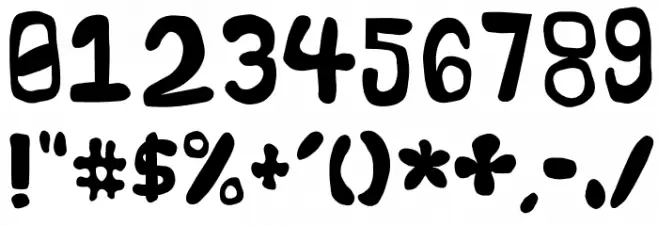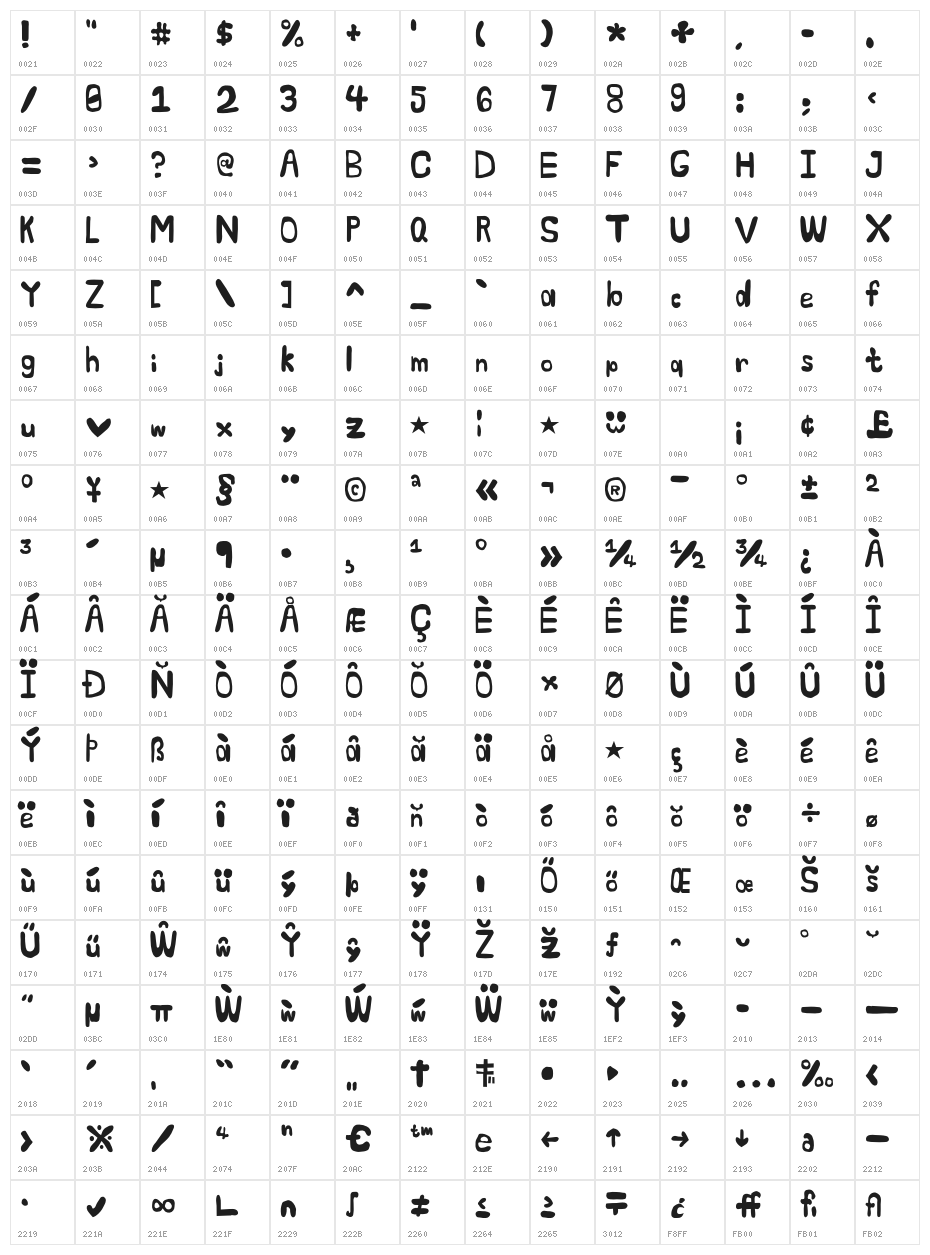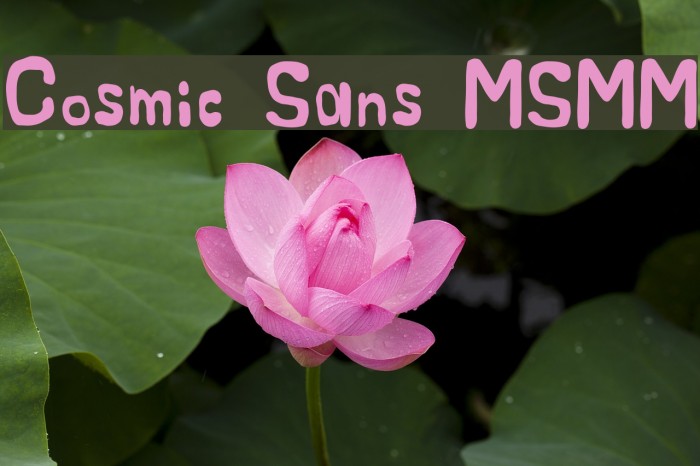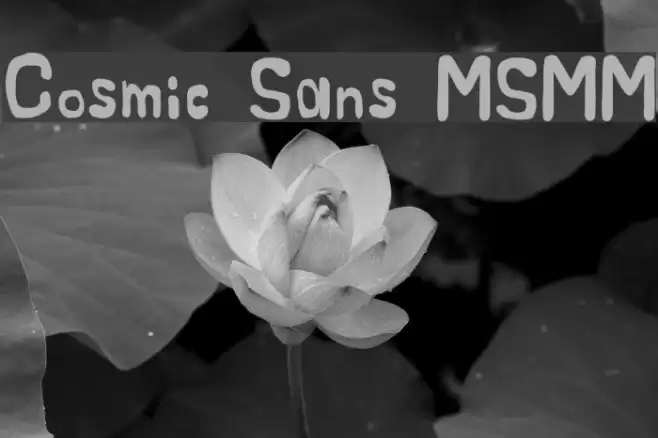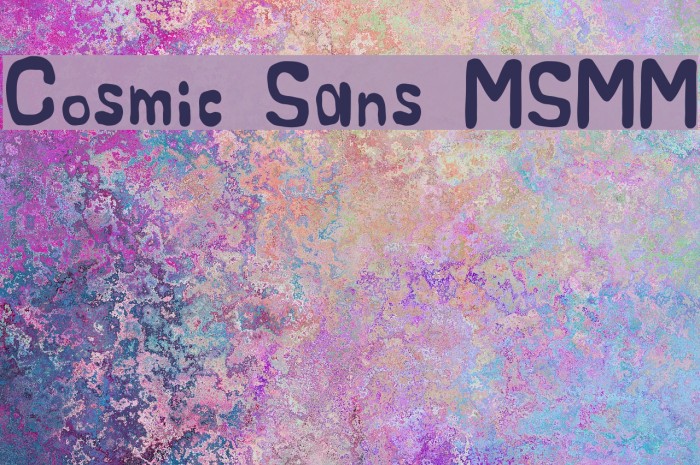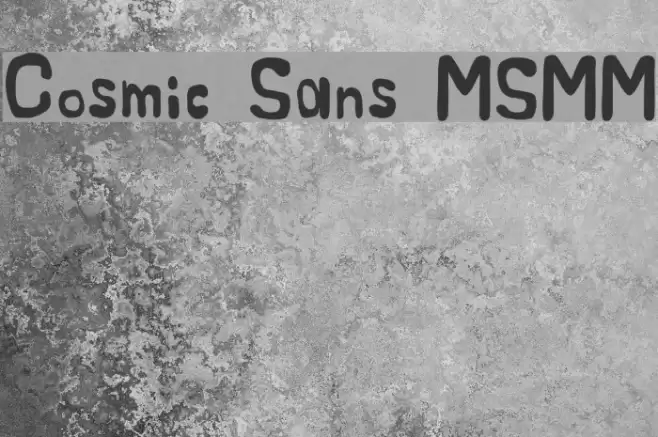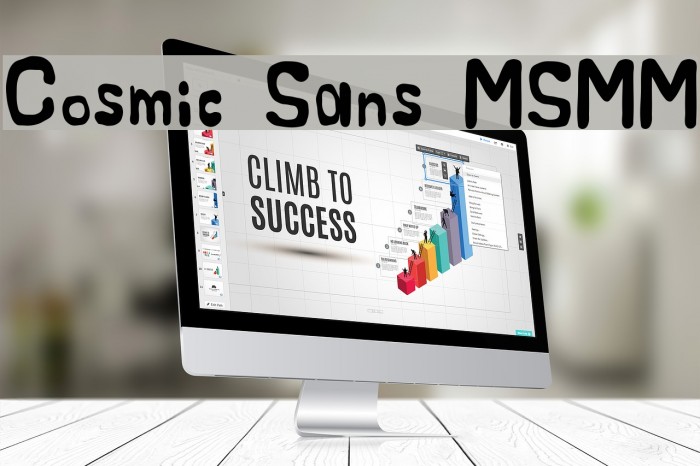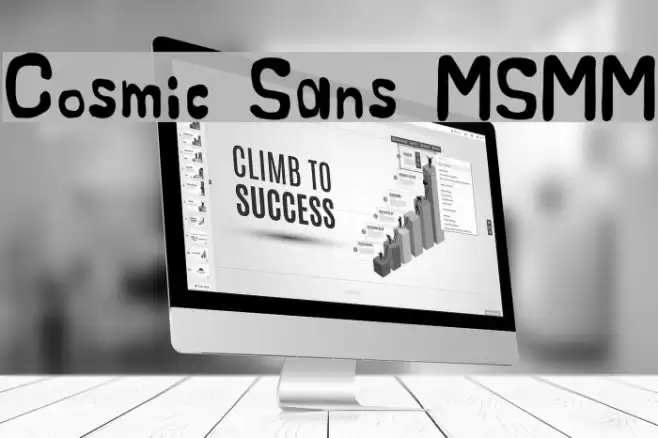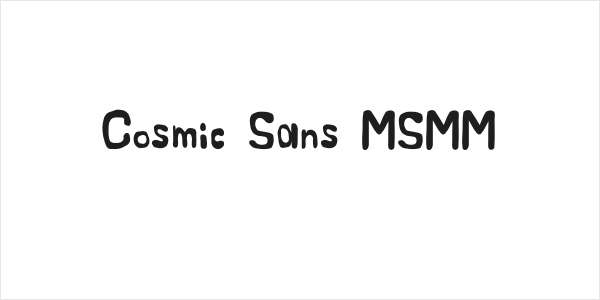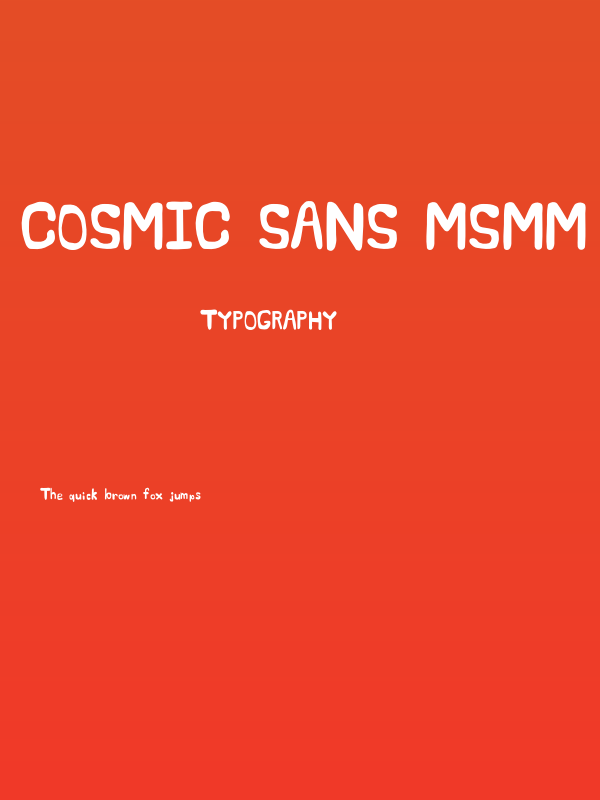
Cosmic Sans MSMM Font
Cosmic Sans MSMM Description
This playful and whimsical font features bold, rounded characters with a hand-drawn appearance. The letters are slightly irregular, adding to the casual and friendly feel. The uppercase and lowercase letters maintain a consistent style, with the lowercase being slightly more compact. Numbers and special characters follow the same playful design, making the font versatile for various creative projects. The overall look is informal and approachable, ideal for projects that require a fun and engaging typeface.